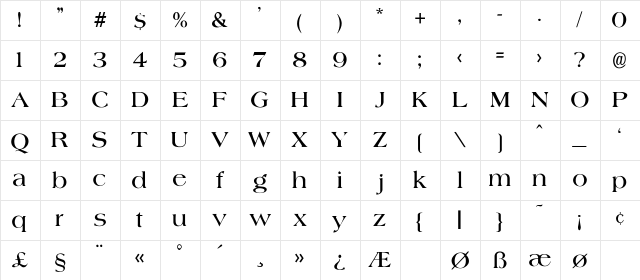
Agate-Bold Regular
Agate-Bold Family
Design Context for Agate-Bold
Agate-Bold is a composed and adaptable typeface that performs quietly and consistently across a wide range of design contexts. Its bold stroke weight gives it real presence on the page.